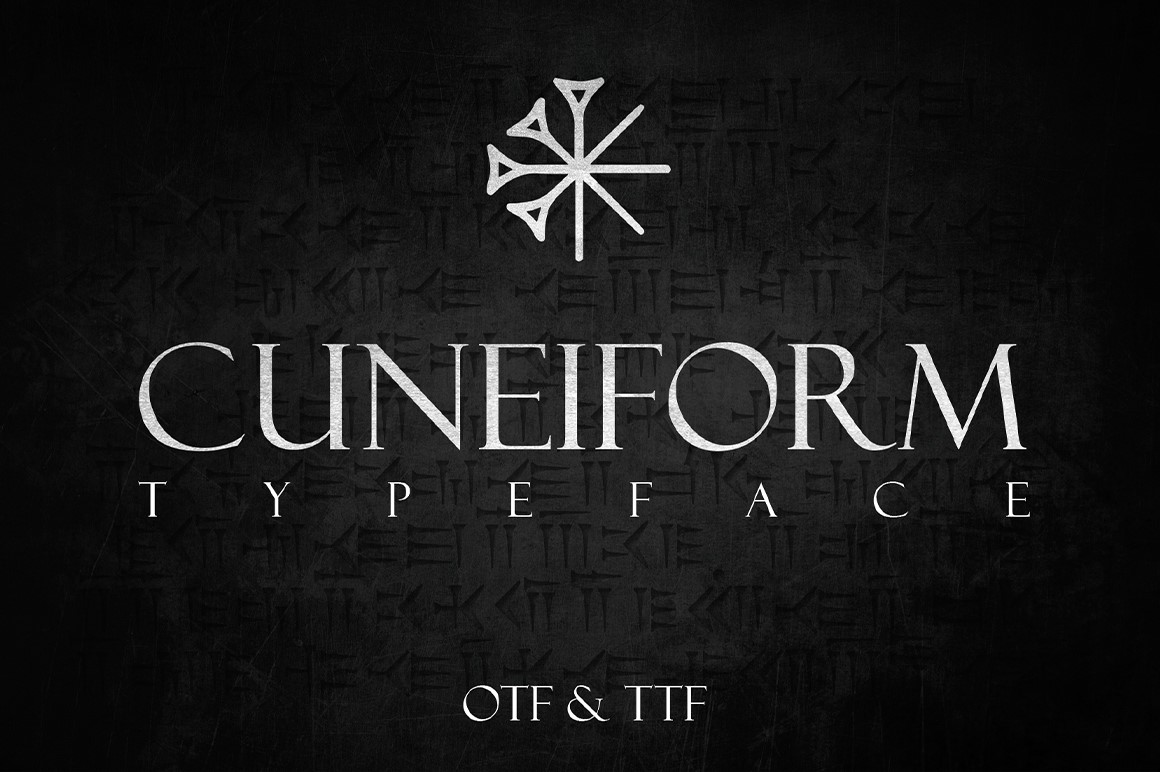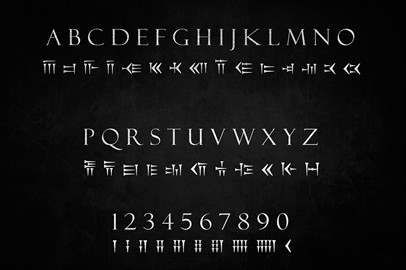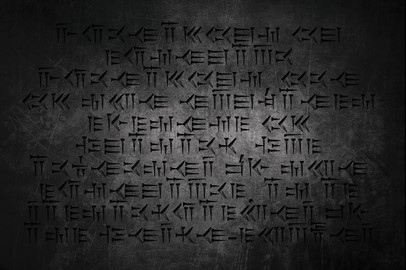
CUNEIFORM: An Ancient Typeface
Cuneiform is the first system of writing in human civilization. Cuneiform is a system of writing first developed by the ancient Sumerians of Mesopotamia c. 3500-3000 BCE. This incredible language has been brought back from the past and made into a typeface to bring your projects to life and give authenticity to your projects. This typeface is perfect for logos, monograms, titles, games, posters, and more. Cuneiform is the oldest written language and this is not a translating tool.